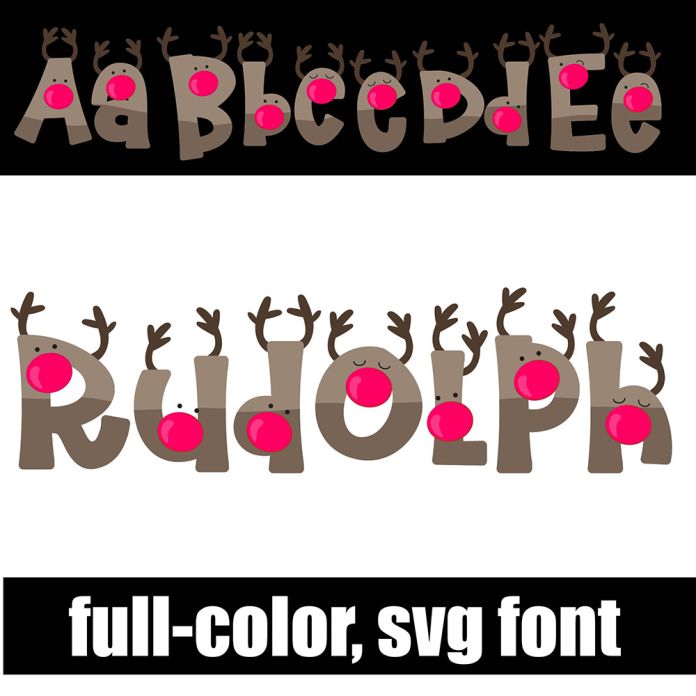
This full-color font features Rudolph's face throughout. This font works best for titles, displays, posters and more. Please note color fonts will show as black in non compatible programs. This font type is compatible with Silhouette Studio.